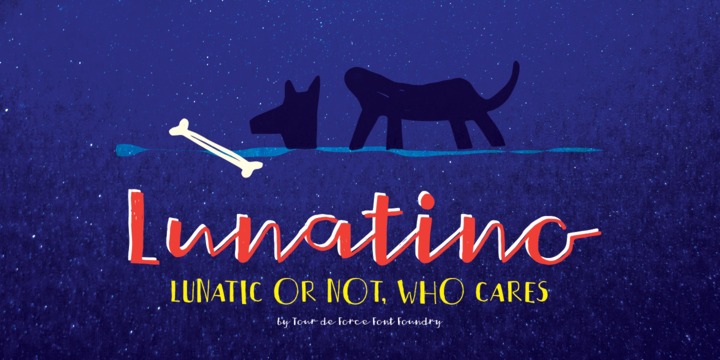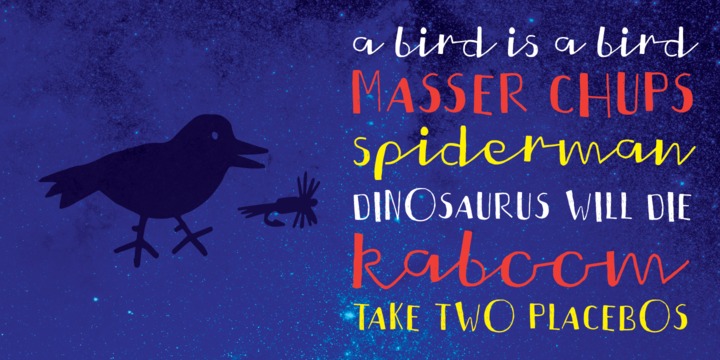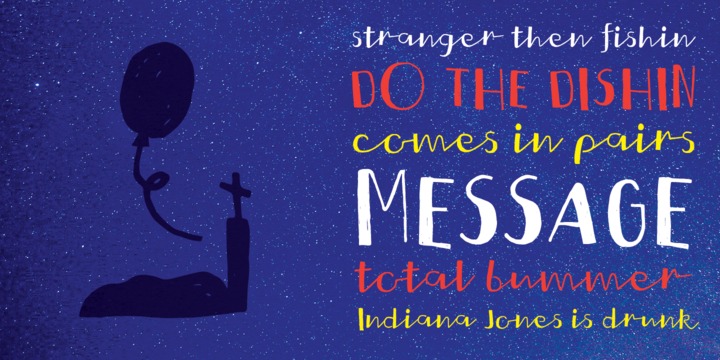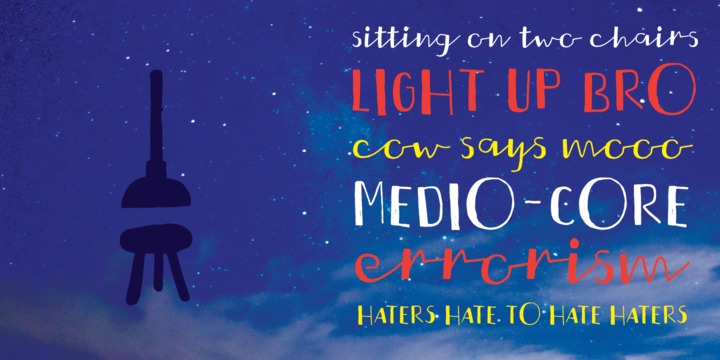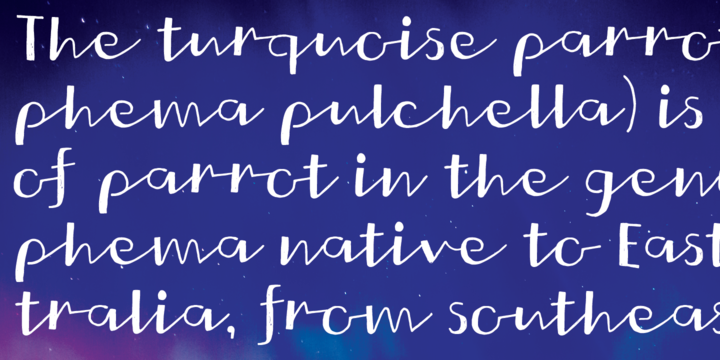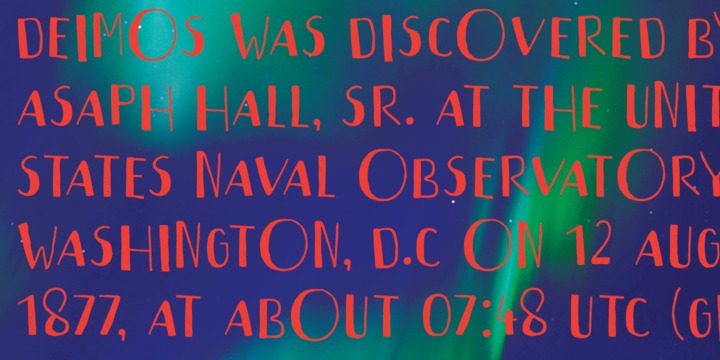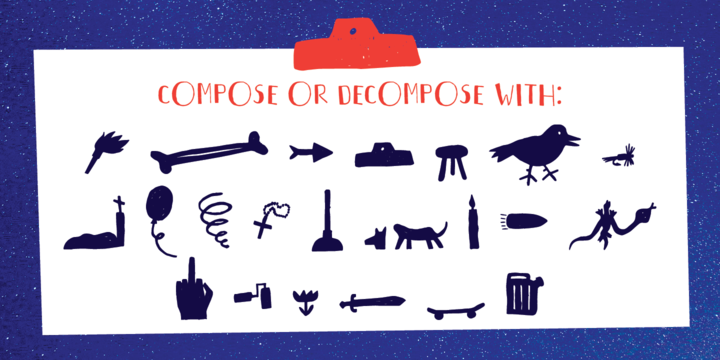
Lunatino Font
About Lunatino Font
Handwritten and drawn “Lunatino” jumps in any needed situation no matter how lunatic it can be. Contains 23 symbols to fulfill the lunacy.